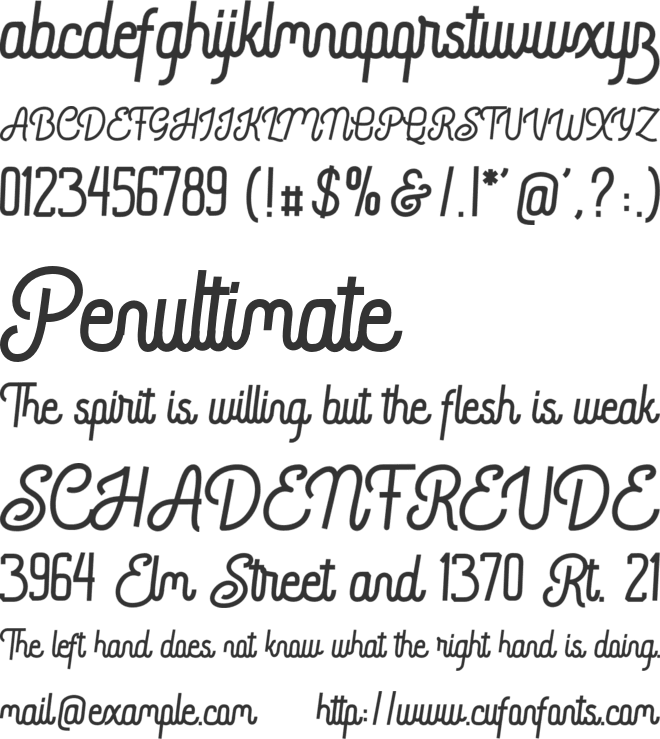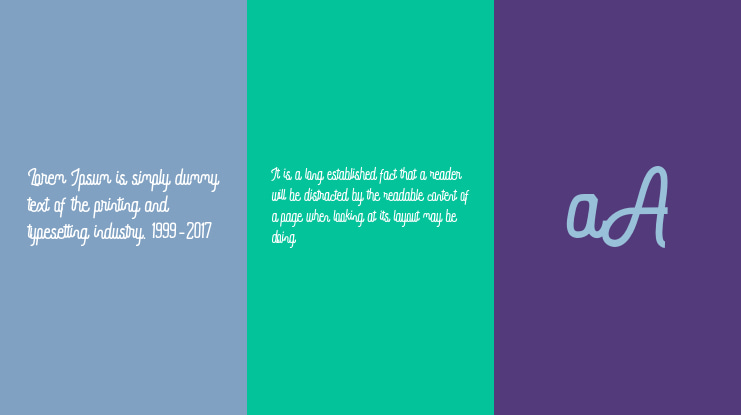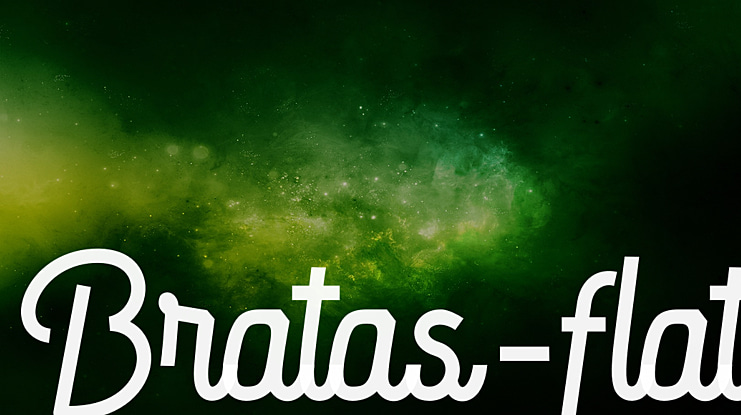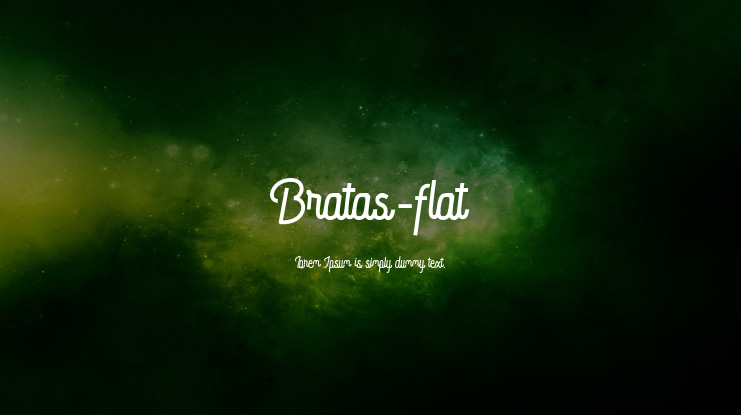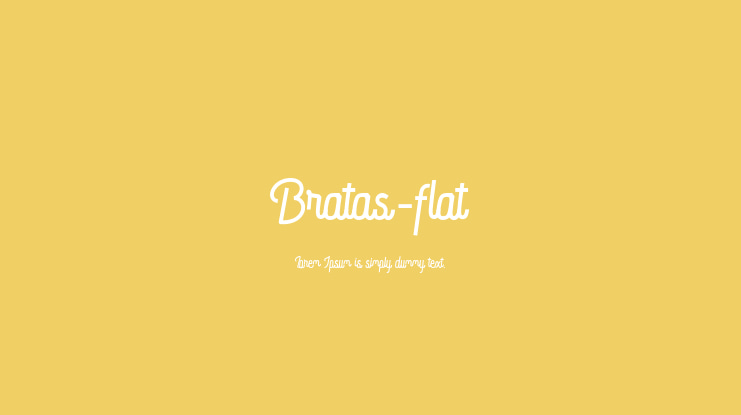
Introducing our new monoline font Bratas, a very neat monoline. Inspired by retro posters from the 80s, old-school neon lights, and modern vintage designs.Bratas is a versatile font that you can use for any style like funky, retro, techno, modern, minimalistic and more! Equipped with a straight swash to give it a more elegant look and many alternative characters that allow you to create brilliant typographic combinations.TTF & OTF format in the displayed zip file:NOTE: This demo font is for PERSONAL USE ONLY! But my donation is very appreciatedPaypal account for donation: https://paypal.me/yontypestudioco?locale.x=id_IDlink to purchase full version and Commercial License–https://fontbundles.net/yontypestudioco/1468696-bratas-font–https://www.creativefabrica.com/product/bratas/ref/235915/Please visit our store for more great fonts:https://yontypestudio.com/Thank you for your support and have a nice day!